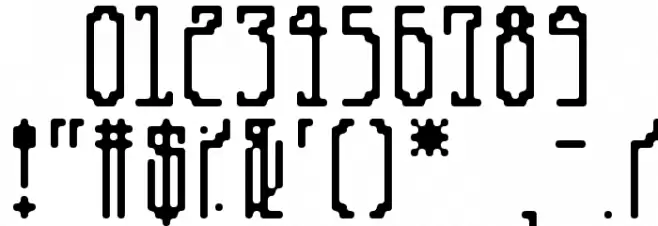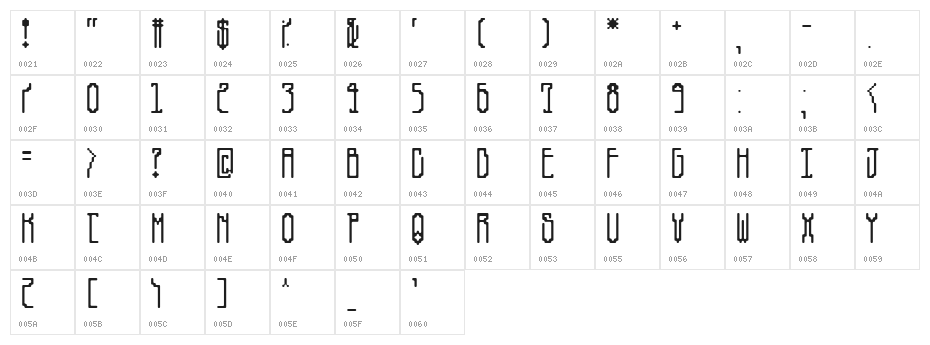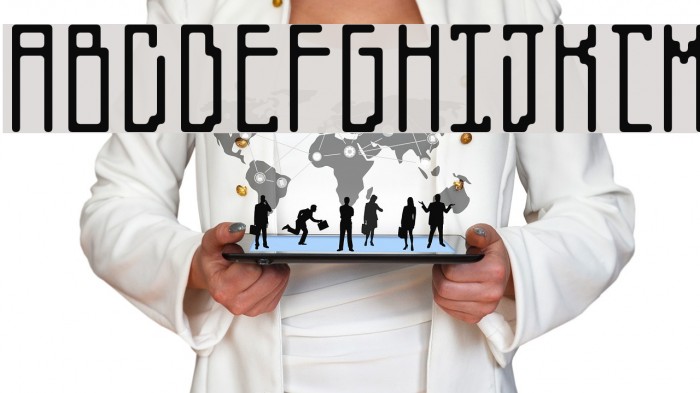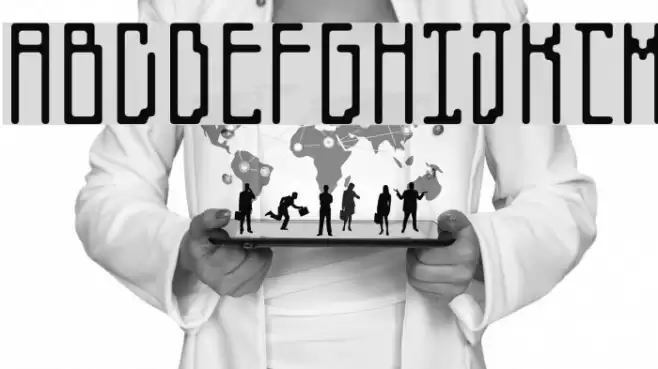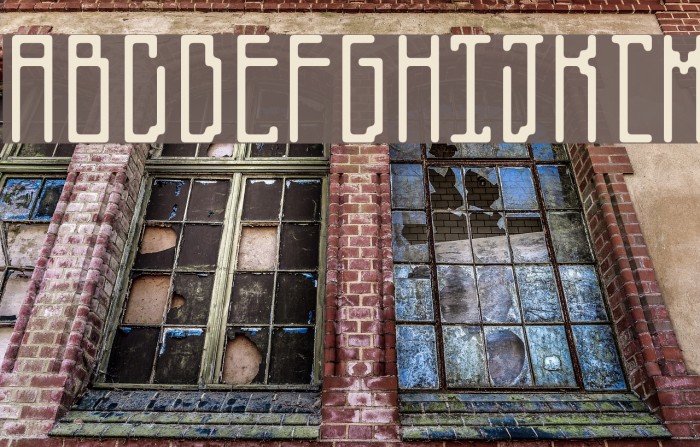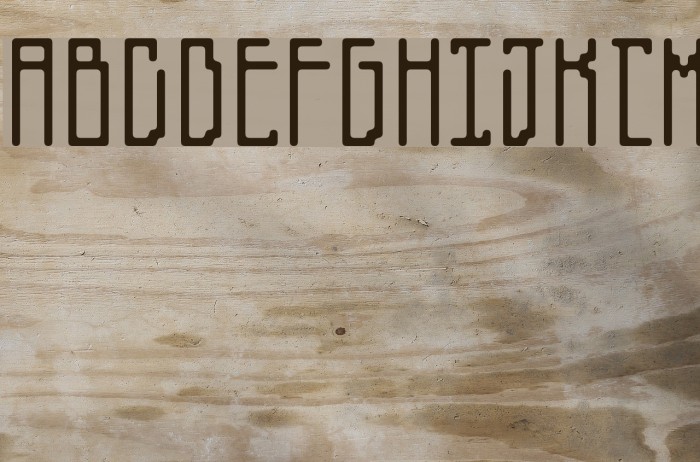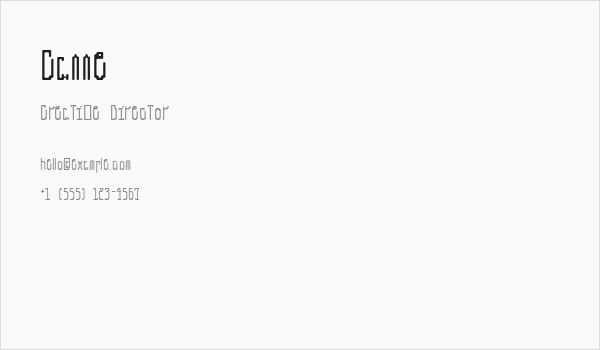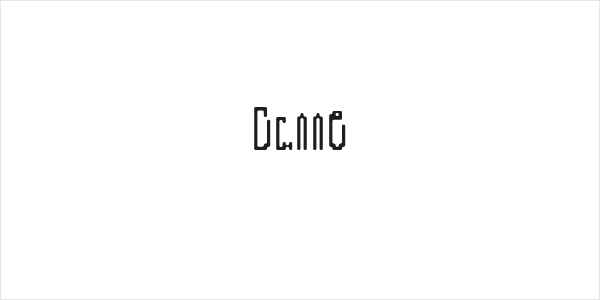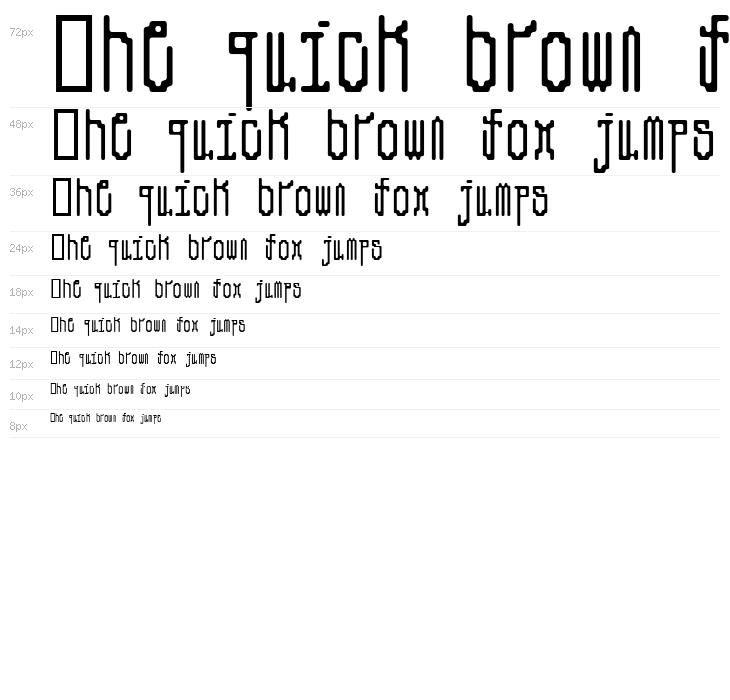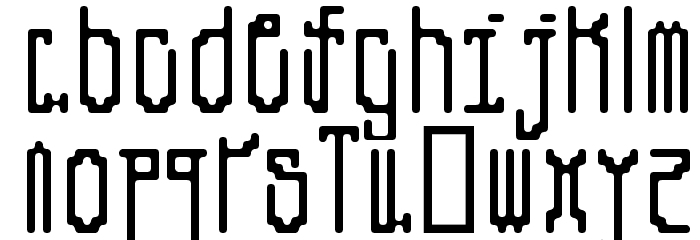
Canne Font
Canne Description
This font features a unique, geometric design with a bold, blocky appearance. Each character is constructed with a consistent stroke width, creating a uniform and cohesive look. The uppercase and lowercase letters share a similar structure, enhancing readability while maintaining a distinct style. The numbers and special characters are designed to match the overall aesthetic, making this font versatile for various uses. Its modern and edgy appearance makes it suitable for projects that require a strong visual impact.
| Proposed Projects | Ideal for branding, posters, and digital media where a strong, modern look is desired. |